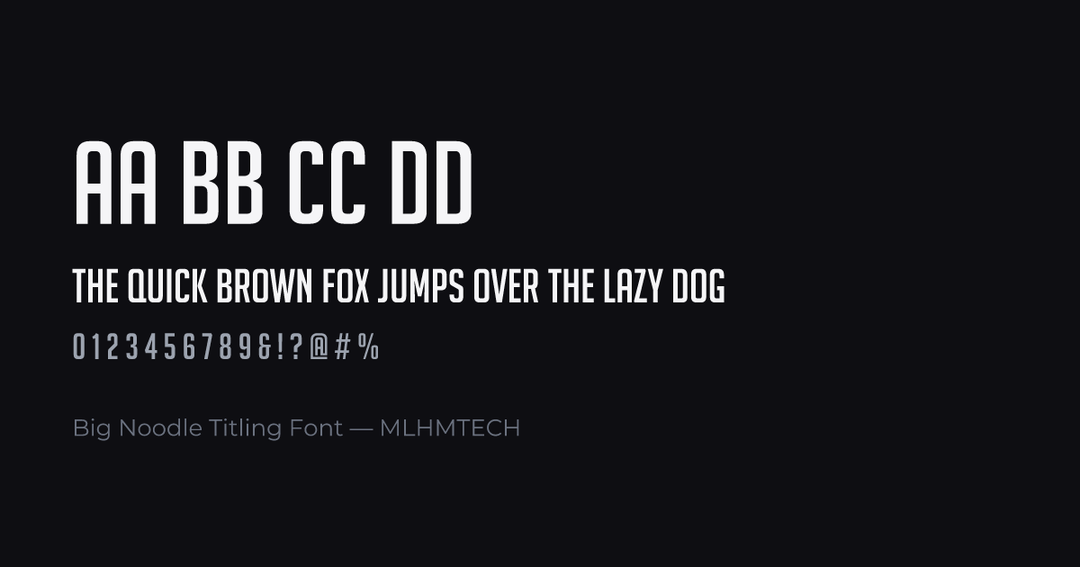
Big Noodle Titling Font
Big Noodle Titling is a bold, condensed sans-serif font ideal for eye-catching titles and headlines. Perfect for video editing, posters, and logos.
Big Noodle Titling is a popular display font known for its heavy, condensed strokes and strong presence. It is often used in action movie posters, sports graphics, and video titles to convey impact and energy.